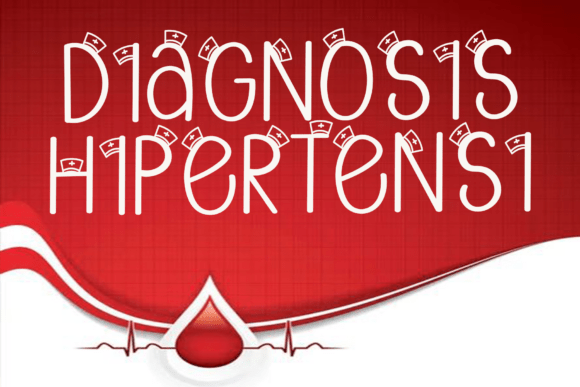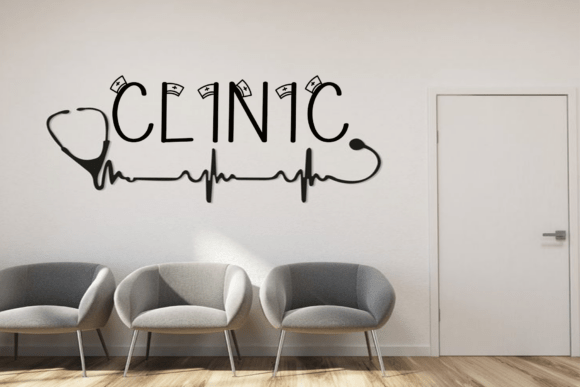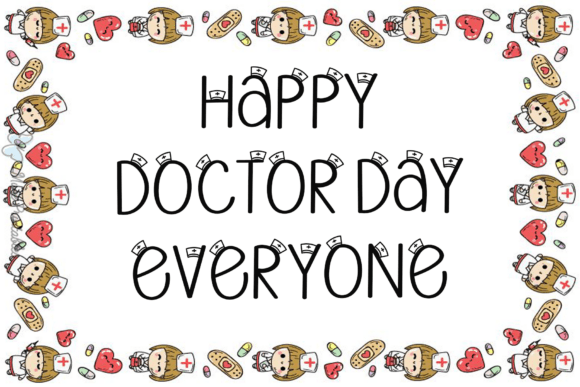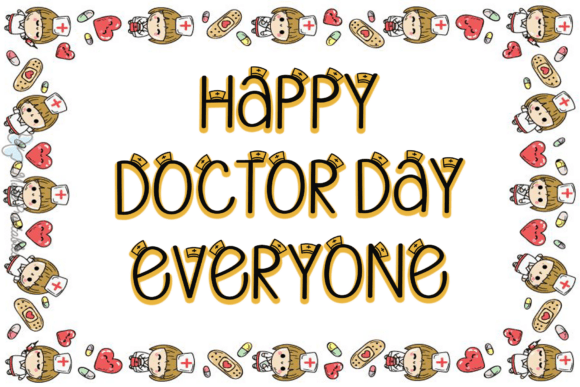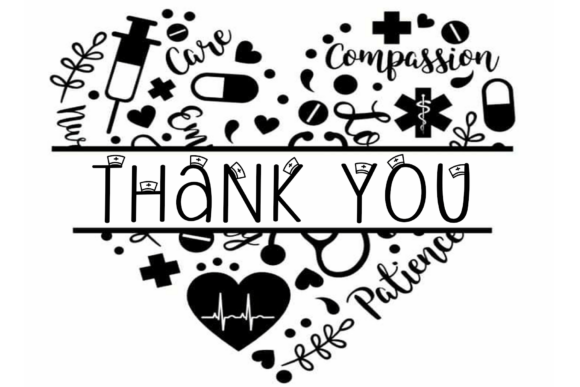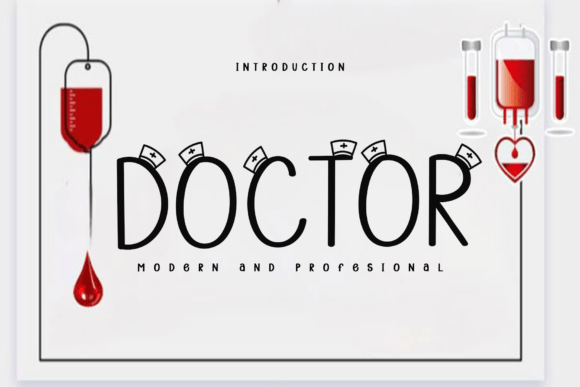
Introducing Doctor Font: The Sweet and Friendly Handwritten Font for Your Design Needs
Are you looking for a font that can add a touch of warmth and personality to your designs? Look no further than Doctor Font, a sweet and friendly handwritten font that’s perfect for a variety of creative projects. In this article, we’ll take a closer look at the features and benefits of Doctor Font, and explore how you can use it to elevate your designs.
What is Doctor Font?
Doctor Font is a beautiful, handwritten font that’s designed to bring a fresh and casual feel to your designs. With its smooth, flowing lines and playful curves, this font is ideal for creating wedding invitations, greeting cards, and other designs that require a personal touch. Whether you’re a designer, crafter, or DIY enthusiast, Doctor Font is a versatile and easy-to-use font that can help you create stunning designs.
Key Features of Doctor Font
- Sweet and Friendly Design: Doctor Font features a sweet and friendly design that’s perfect for creating designs that require a personal touch.
- Handwritten Style: This font boasts a beautiful, handwritten style that’s casual and approachable.
- Fresh and Casual Feel: Doctor Font has a fresh and casual feel that’s ideal for creating designs that require a modern and playful touch.
- Easy to Read: The font is easy to read, making it perfect for body text and other designs that require clear communication.
- Versatile: Doctor Font is a versatile font that can be used for a variety of design projects, from wedding invitations to social media graphics.
Use Cases for Doctor Font
Doctor Font is a versatile font that can be used for a variety of design projects. Here are some use cases to get you started:
- Wedding Invitations: Doctor Font is perfect for creating beautiful and elegant wedding invitations that set the tone for your special day.
- Greeting Cards: This font is ideal for creating greeting cards for birthdays, holidays, and other special occasions.
- Social Media Graphics: Doctor Font can be used to create stunning social media graphics, including Facebook posts, Instagram stories, and Twitter headers.
- Blog Posts: This font can be used to create engaging and easy-to-read blog posts that showcase your writing style.
- Branding and Packaging: Doctor Font can be used to create custom branding and packaging designs that reflect your brand’s personality.
Tips for Using Doctor Font
Here are some tips for using Doctor Font in your designs:
- Pair with Other Fonts: Doctor Font can be paired with other fonts to create a unique and visually appealing design.
- Experiment with Colors: This font looks great in a variety of colors, so don’t be afraid to experiment and find the perfect hue for your design.
- Use for Headings and Body Text: Doctor Font can be used for both headings and body text, making it a versatile font for a variety of design projects.
- Add a Personal Touch: Doctor Font is perfect for adding a personal touch to your designs, so don’t be afraid to get creative and add your own unique flair.
Doctor Font is a sweet and friendly handwritten font that’s perfect for designers, crafters, and DIY enthusiasts. With its fresh and casual feel, this font is ideal for creating a variety of designs, from wedding invitations to social media graphics. Whether you’re looking to add a personal touch to your designs or create a unique brand identity, Doctor Font is a versatile and easy-to-use font that’s sure to impress.